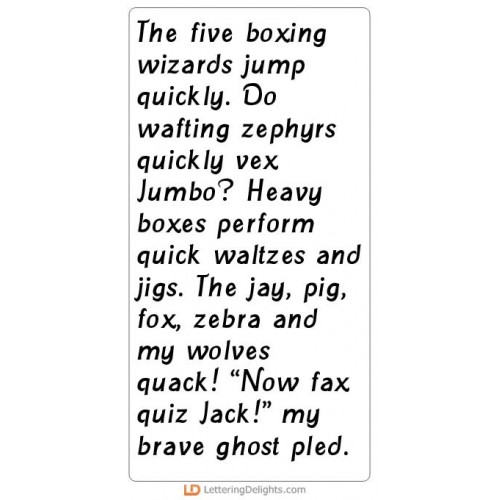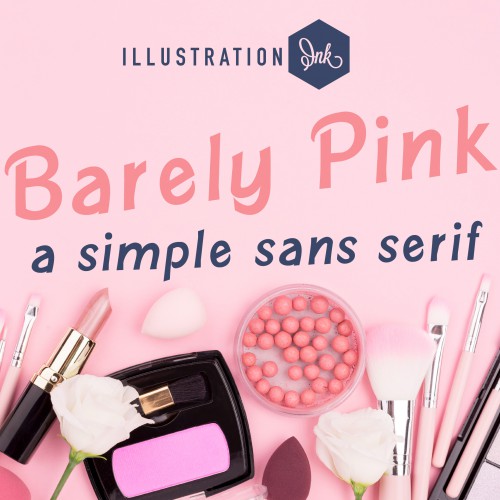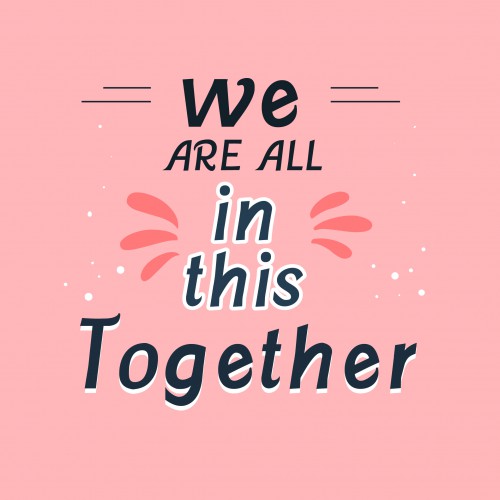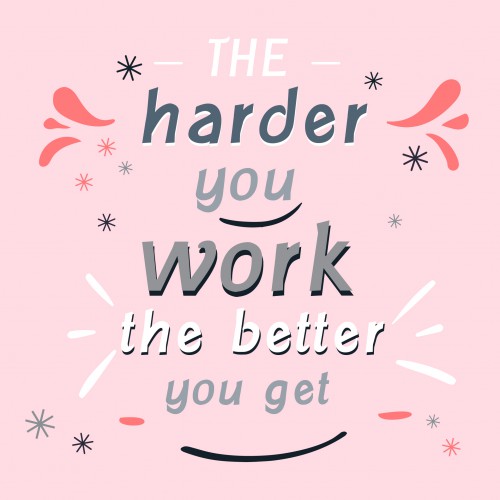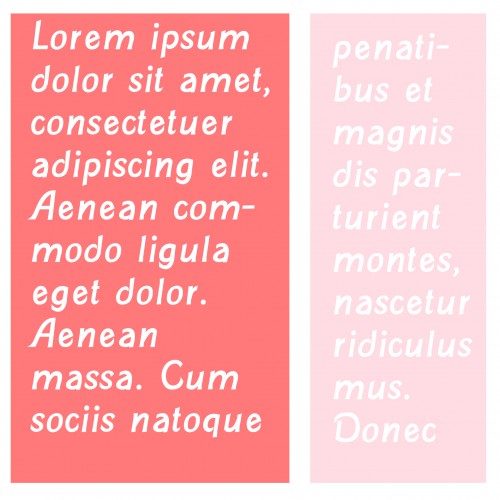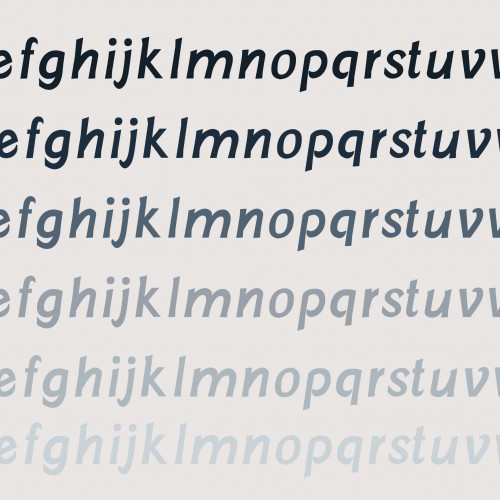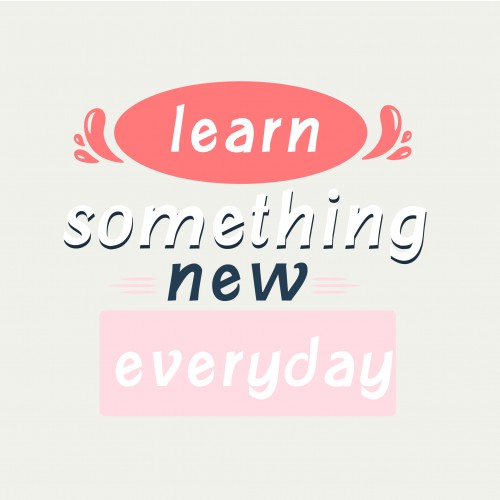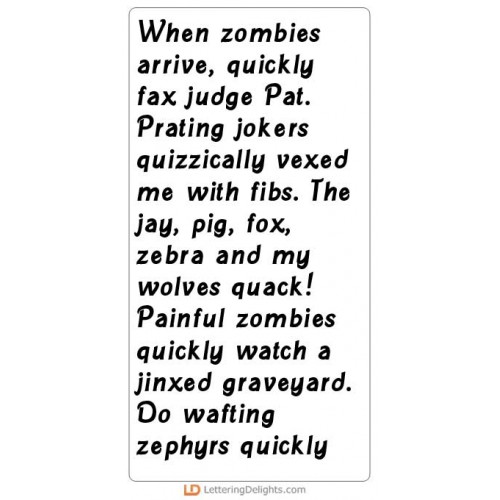
ZP Barely Pink - FN
This sans serif font is a simple italic with some unique flourishes...
ZP Barely Pink - Bold - FN
This sans serif font is a simple italic with some unique flourishes...
Create adorable purse gift bags and cards with this simple cut project set...
Pretty in Pink - AL
This fun pink alphabet coordinates with our Pretty in Pink Collection...
Pretty in Pink - PP
This pretty paperpack coordinates with our Pretty in Pink Collection...